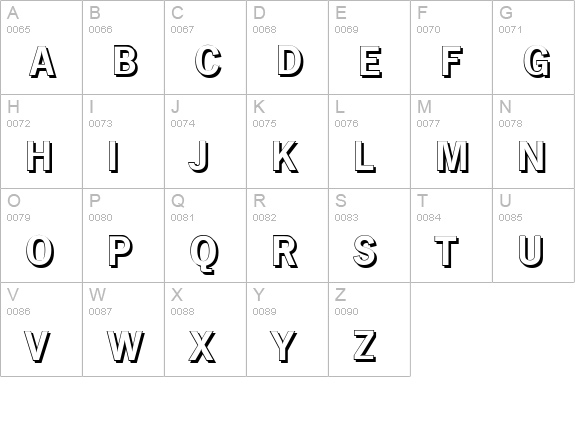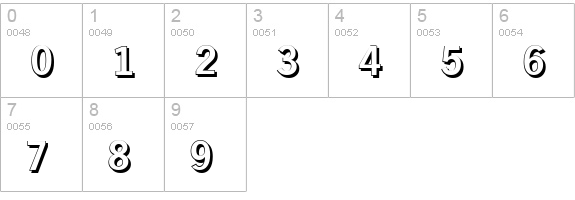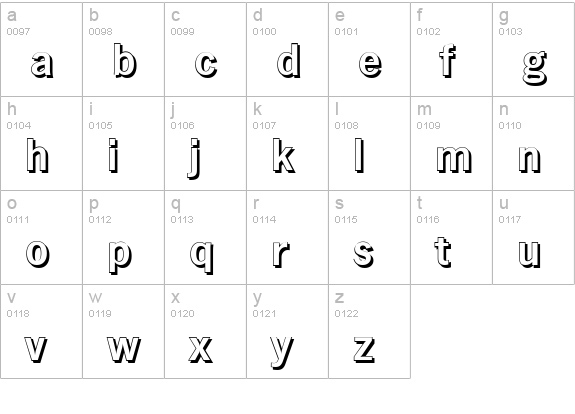
HamburgShadow-Bold is a strong, high-contrast variant in the HamburgShadow typeface family \xE2\x80\x94 well suited to headlines, attention-grabbing titles, and strong calls-to-action.
Introducing HamburgShadow-Bold font - a bold and striking typeface that commands attention with its sharp edges and powerful presence. This font exudes confidence and modernity, making it perfect for headlines, branding, and other design projects that require a strong visual impact. With its sleek and contemporary design, HamburgShadow-Bold font is sure to make a statement wherever it is used. The clean lines and distinct shadow effect add depth and dimension to the text, creating a dynamic and engaging look. Best of all, HamburgShadow-Bold font is available for free download at FontsMarket.com. Whether you're a designer looking to add a touch of boldness to your projects or a business owner in need of a font that stands out, HamburgShadow-Bold font is the perfect choice. Download it today and elevate your designs with this stunning typeface.